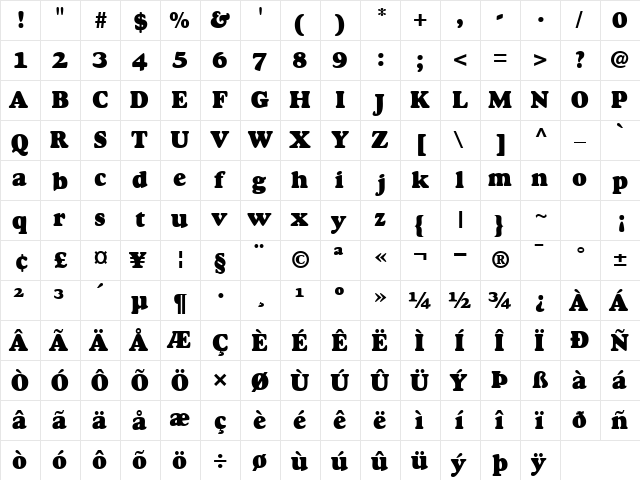
GoudyBlackSSK Bold
Design Context for GoudyBlackSSK Typeface
GoudyBlackSSK is a composed and adaptable typeface that performs quietly and consistently across a wide range of design contexts. The heavy weight commands attention and anchors typographic hierarchies.